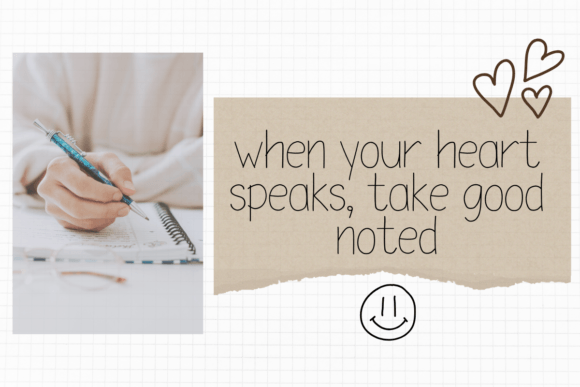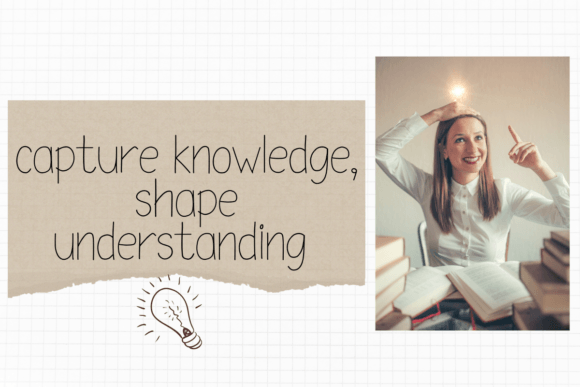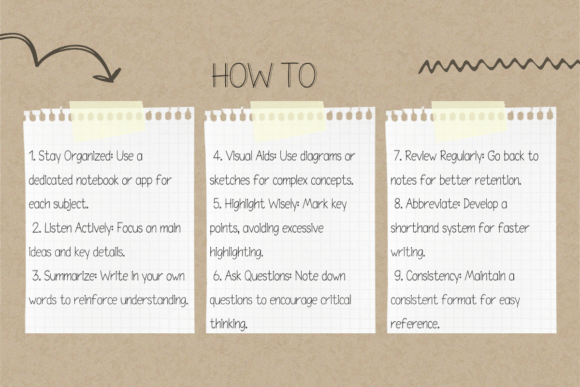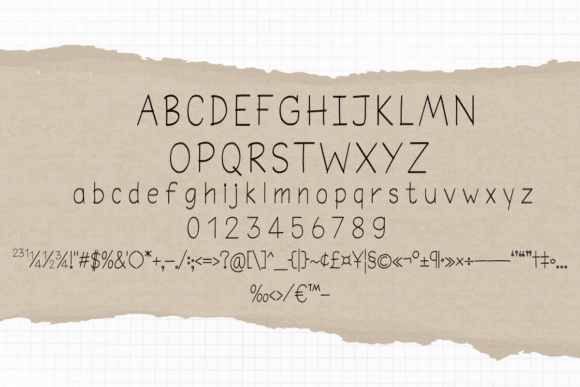
Introducing FineLine Note: The Ultimate Sans Serif Font for Clean and Simple Designs
Are you a designer or crafter looking for a font that embodies simplicity and elegance? Look no further than FineLine Note, a charming sans serif typeface that’s perfect for creating clean and simple designs. In this article, we’ll dive into the world of FineLine Note, exploring its features, uses, and benefits for designers and crafters alike.
What is FineLine Note?
FineLine Note is a cute and simple sans serif font that’s designed to bring a touch of elegance to your designs. Its clean lines, subtle curves, and minimalist aesthetic make it an ideal choice for a wide range of applications, from planner designs to magazine covers, packaging, perfume, and cosmetics.
Key Features of FineLine Note
So, what makes FineLine Note so special? Here are some of its key features:
- Clean and Simple Design: FineLine Note boasts a sleek and minimalist design that’s perfect for creating clean and simple looking designs.
- Sans Serif Typeface: This font features a sans serif design, which gives it a modern and fresh feel.
- Cute and Elegant: FineLine Note has a charming and elegant aesthetic that’s sure to capture the attention of your audience.
- Versatile: This font is suitable for a wide range of applications, from digital designs to print materials.
Uses of FineLine Note
FineLine Note is an incredibly versatile font that can be used in a variety of contexts. Here are some of the ways you can use this font:
- Planner Designs: Add a touch of elegance to your planner designs with FineLine Note. Its clean and simple design makes it perfect for creating layouts that are both functional and visually appealing.
- Magazine Covers: Create stunning magazine covers with FineLine Note. Its bold and elegant design is sure to grab the attention of readers.
- Packaging Design: FineLine Note is an excellent choice for packaging design. Its clean and simple aesthetic makes it perfect for creating labels, packaging, and branding materials.
- Perfume and Cosmetics: Add a touch of luxury to your perfume and cosmetics designs with FineLine Note. Its elegant and sophisticated design is sure to appeal to customers.
Benefits of Using FineLine Note
So, why should you choose FineLine Note for your designs? Here are some of the benefits of using this font:
- Elegant and Sophisticated: FineLine Note adds a touch of elegance and sophistication to your designs, making them perfect for high-end brands and luxury products.
- Clean and Simple: This font’s clean and simple design makes it easy to read and understand, even at small sizes.
- Versatile: FineLine Note can be used in a wide range of applications, from digital designs to print materials.
- Easy to Pair: This font pairs well with a variety of other fonts, making it easy to create stunning and cohesive designs.
FineLine Note is a charming and elegant sans serif font that’s perfect for designers and crafters looking to create clean and simple designs. Its versatility, elegance, and simplicity make it an ideal choice for a wide range of applications, from planner designs to magazine covers, packaging, perfume, and cosmetics. Whether you’re a seasoned designer or a crafter just starting out, FineLine Note is sure to become a staple in your font collection.